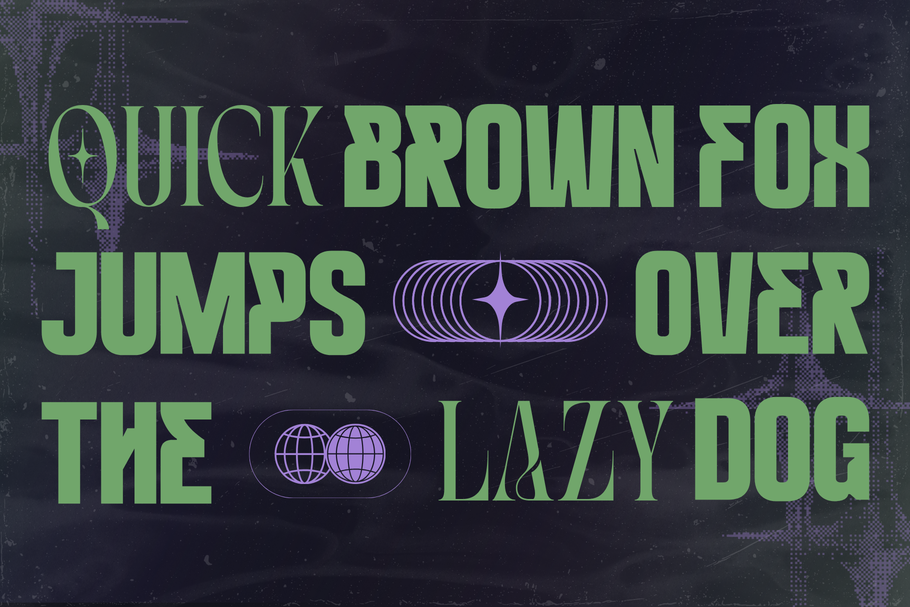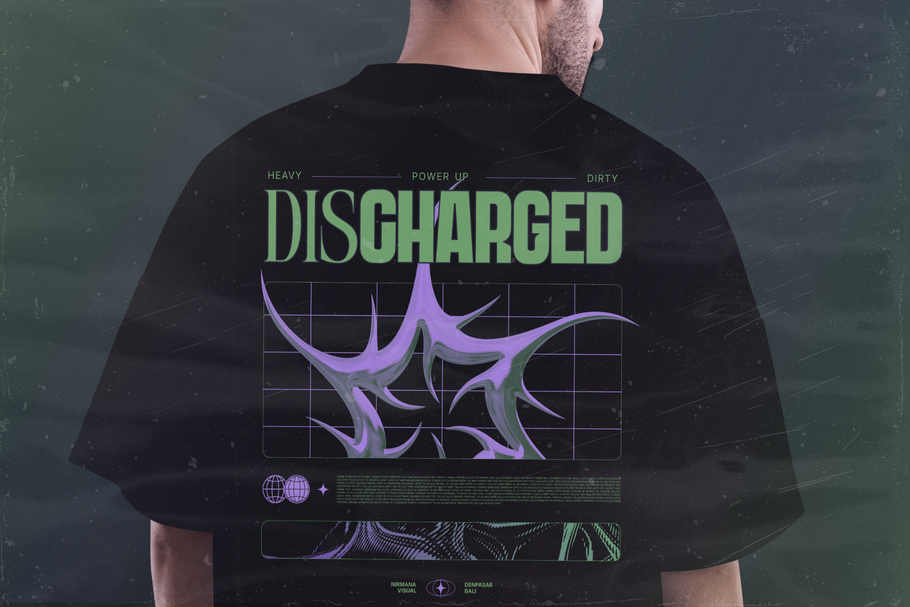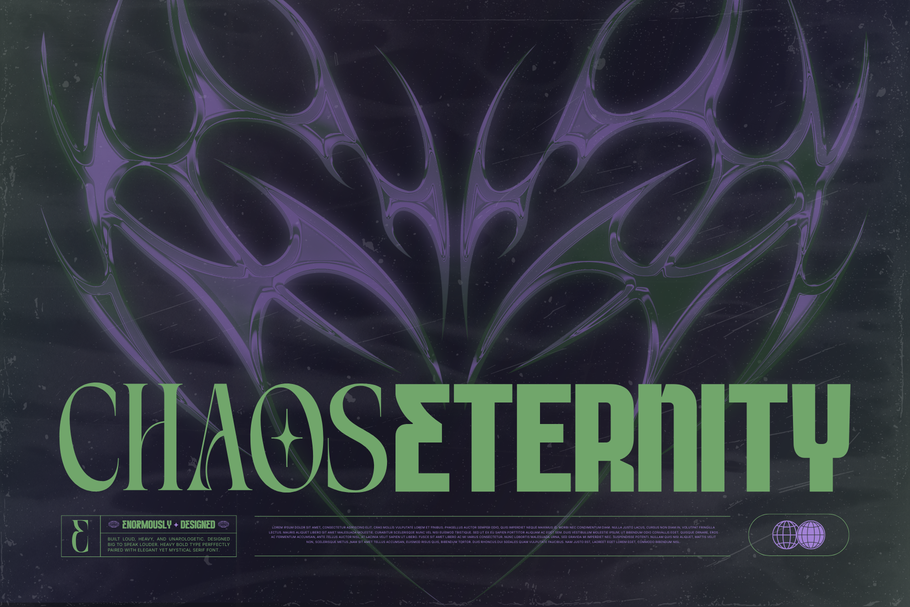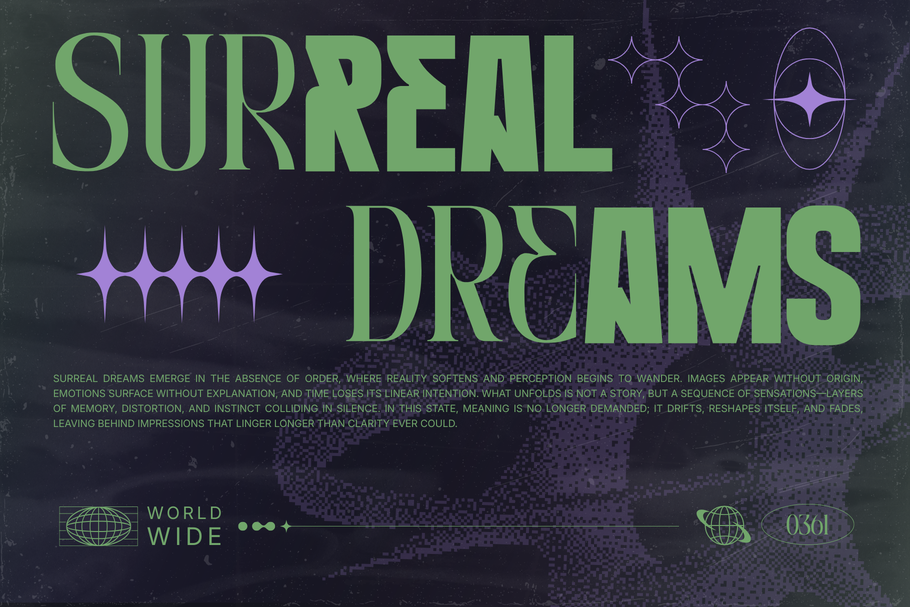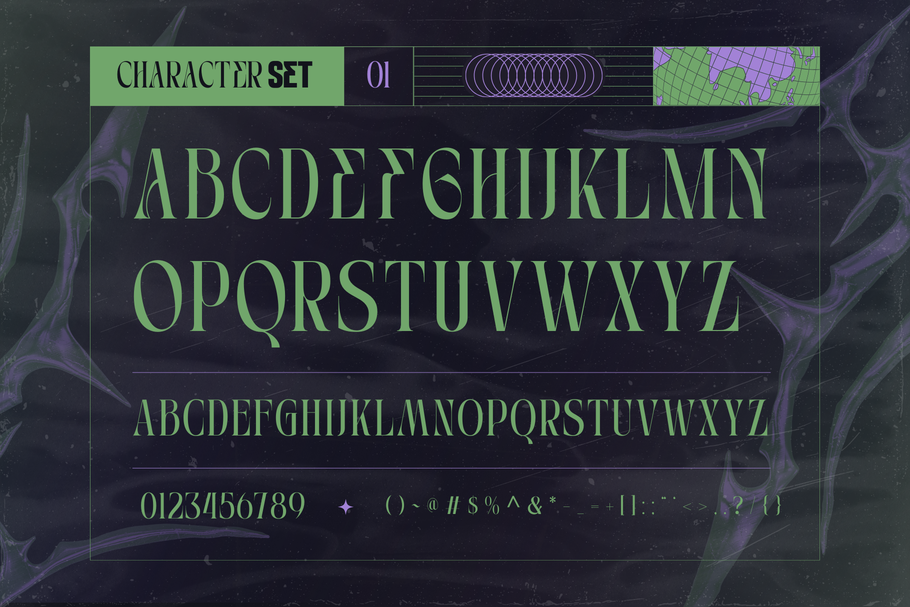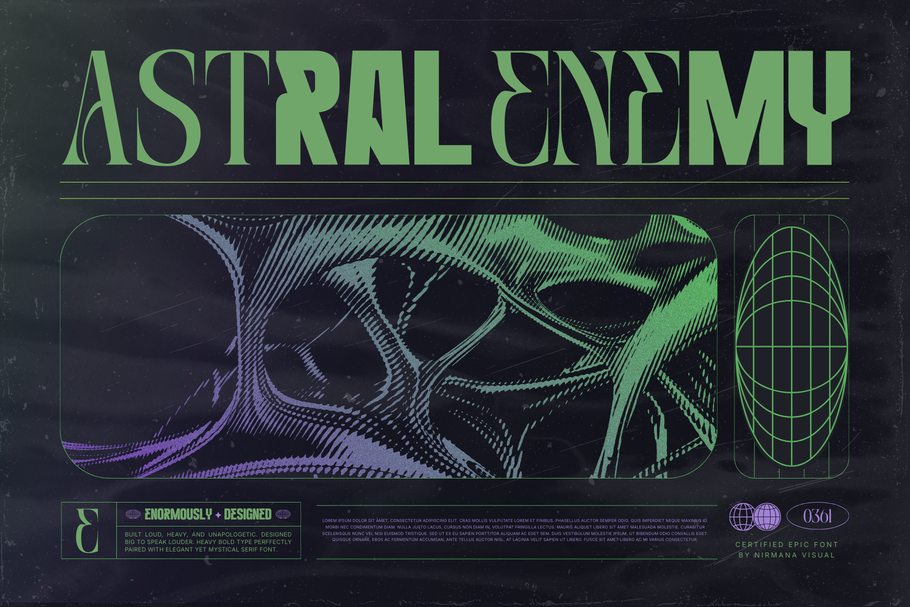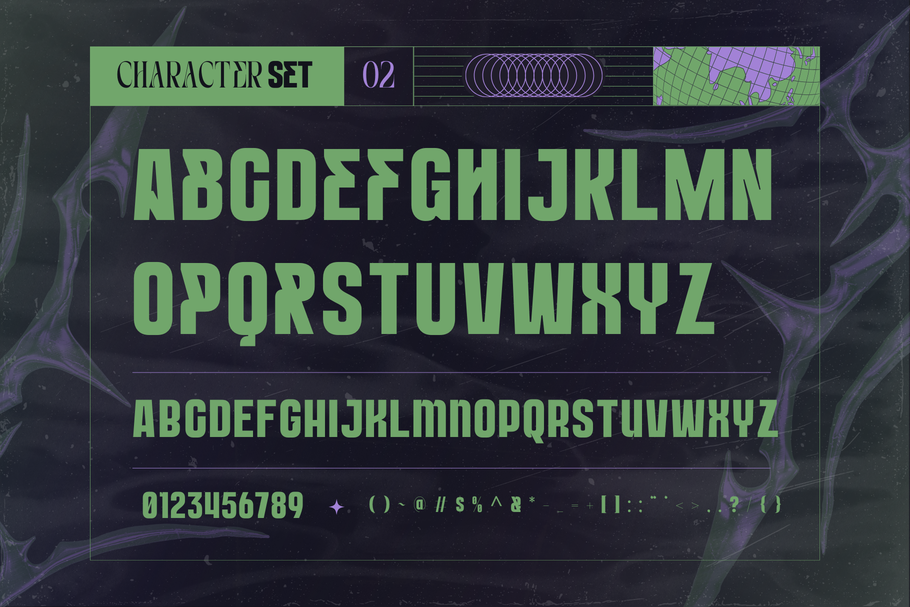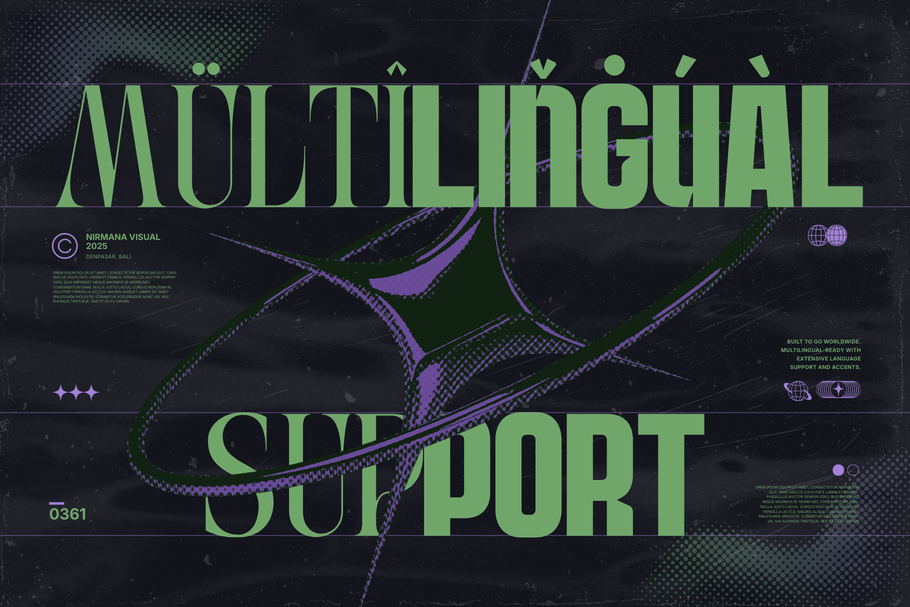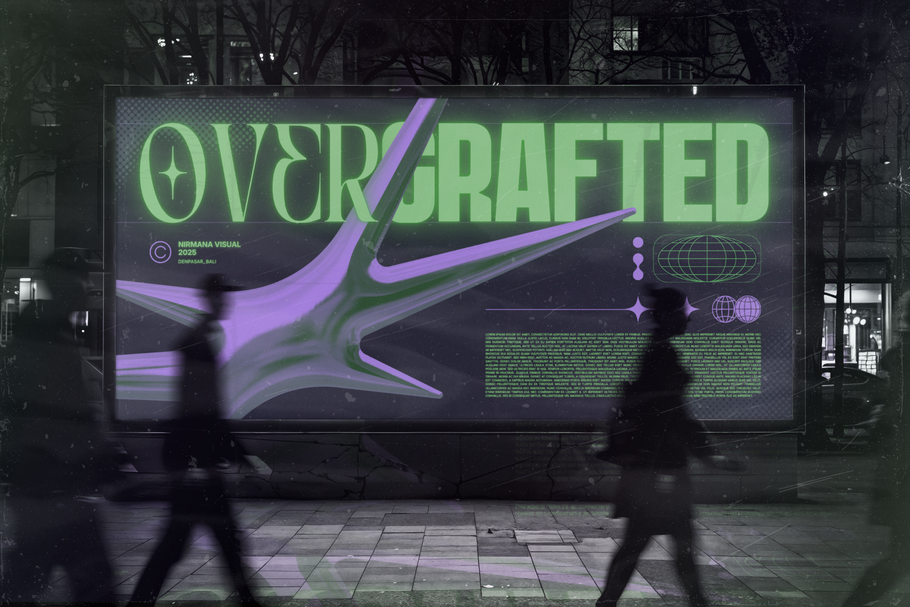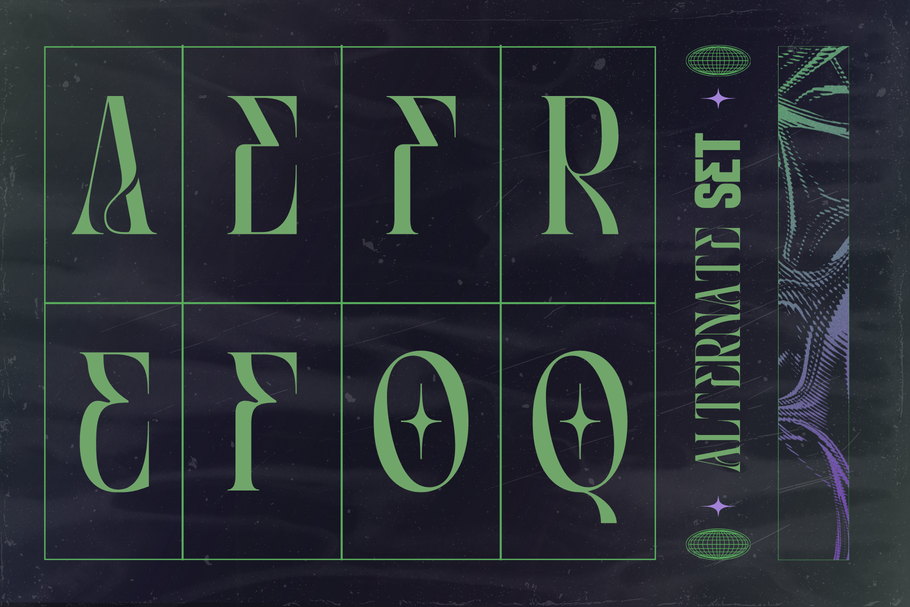
Avoerock offers beautiful typographic harmony for a diversity of design projects, including logos & branding, social media posts, advertisements & product designs.